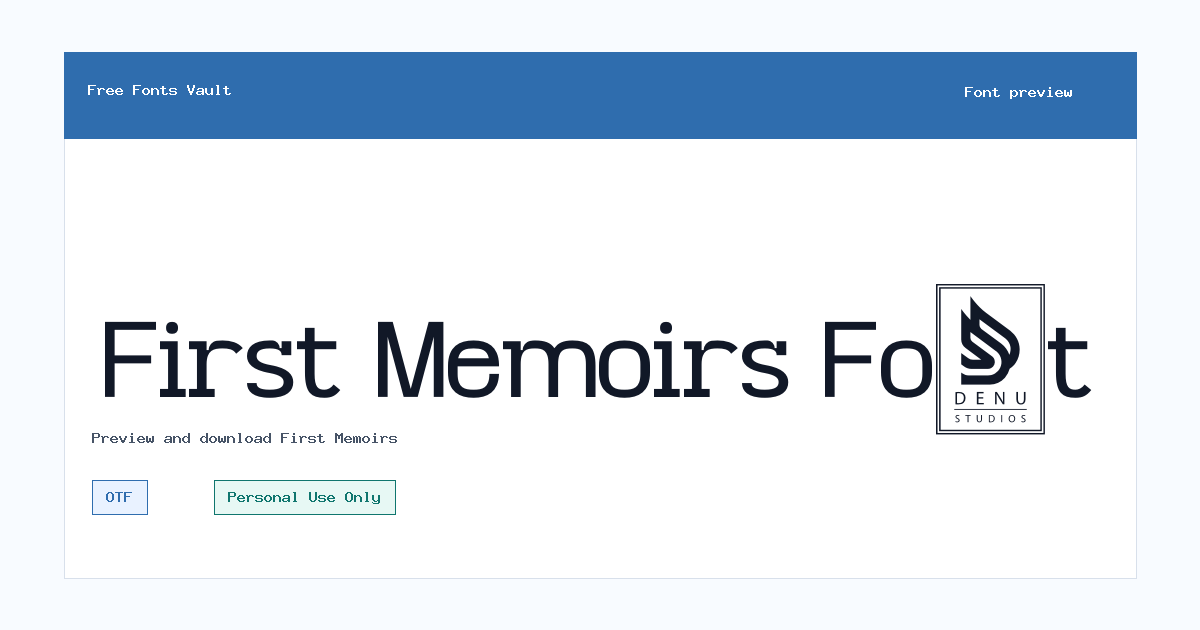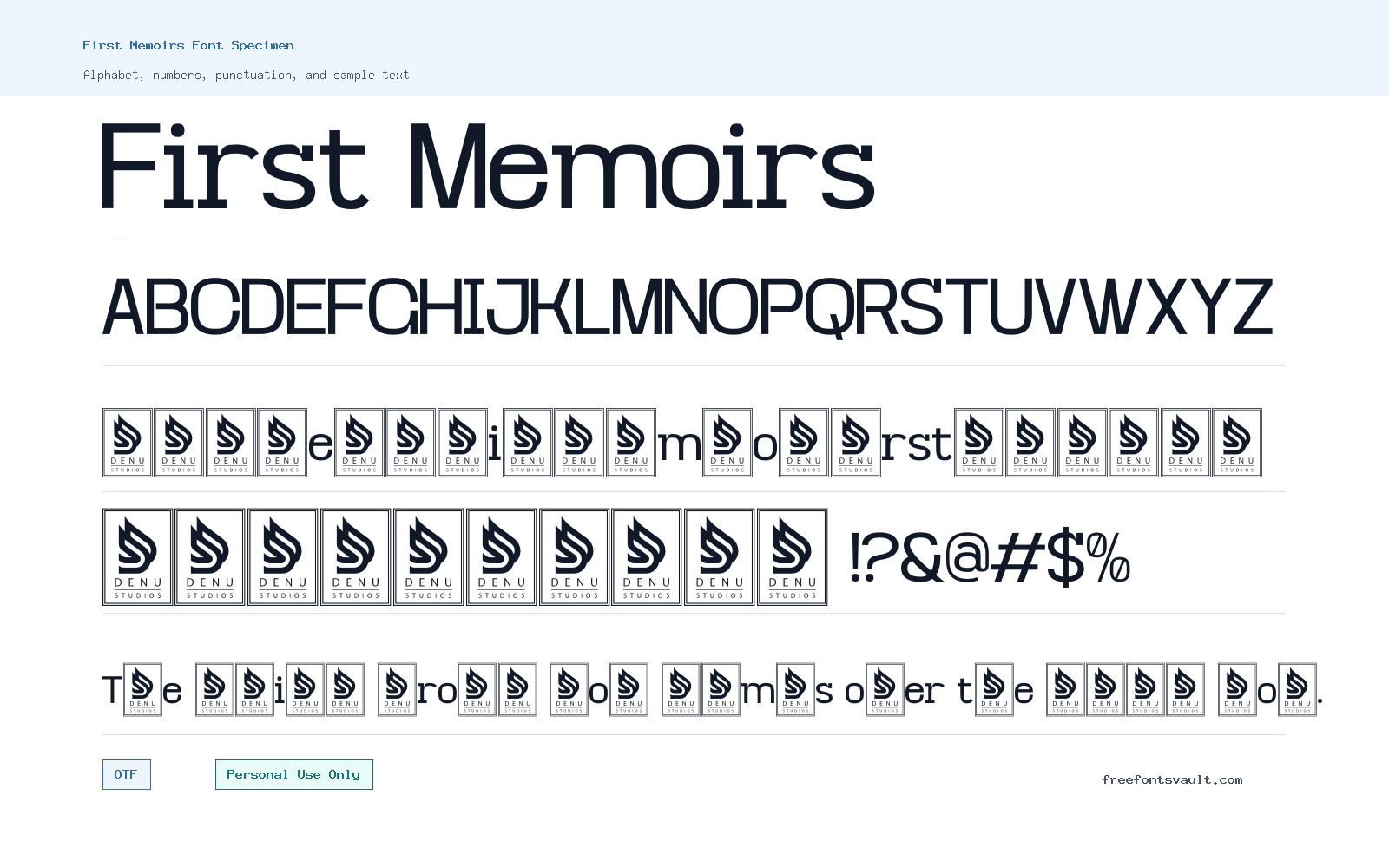
First Memoirs
First Memoirs font.
First Memoirs is a personal-use sans serif font from Dede Nugraha and Gracetype Studios. It is a good font to test when you need clean lettering for display design, logo drafts, poster titles, branding mockups, or short pieces of web text.
About First Memoirs
For design work, start by testing First Memoirs in short text: brand names, event headings, packaging mockups, social media title cards, quote graphics, and homepage hero text. Sans serif fonts can look simple at first, but small differences in spacing, width, and letter shape matter a lot in logo work. Try your actual project name in uppercase, lowercase, and title case. Pay close attention to letters with round or narrow forms, such as O, A, S, R, M, W, and lowercase a or e, because those often decide whether a font feels balanced in a wordmark.
First Memoirs is also worth testing in posters and web mockups where the message needs to be clear without using a decorative script or ornate display face. Keep the first test simple: one large headline, one short subheading, and plenty of white space. If the font feels too light, tight, or delicate at small sizes, use it for the main title only and pair it with a neutral body font for longer reading. For web previews, check the font at several sizes before choosing it for navigation, buttons, or labels, since a font that looks good in a large preview can behave differently in compact UI text.
For font pairing, give First Memoirs room to lead. A safe approach is to pair it with a quiet serif for editorial contrast or a plain system-style sans serif for body copy. Avoid pairing it with another strong display sans serif unless the two fonts have clearly different roles, because similar headline fonts can compete with each other. In logo drafts, use fewer effects at first. Test the raw letters before adding shadows, outlines, gradients, or texture. If the font already gives the name the tone you want, the cleaner version will usually be easier to reuse across mockups.
- Sans serif font family with a regular upright style
- Useful for testing short display text, logos, posters, title graphics, and mockups
What type of font is First Memoirs?
What is First Memoirs best used for?
It is best tested in short display settings such as logo drafts, posters, web hero sections, title cards, packaging concepts, and social graphics.
What should I pair with First Memoirs?
Pair it with a simple serif or a neutral sans serif for body text. Let First Memoirs handle the headline or logo role, and keep longer copy in a font made for comfortable reading.